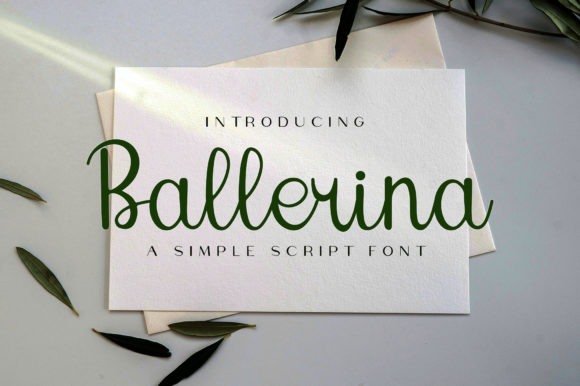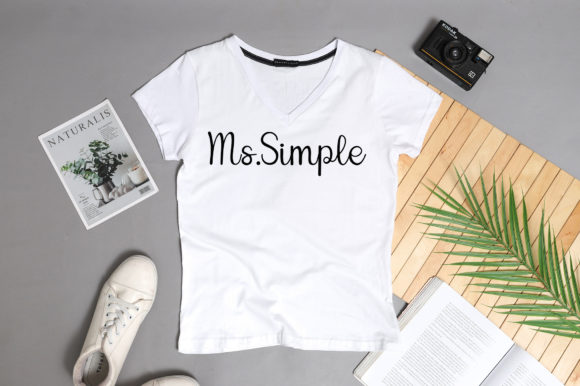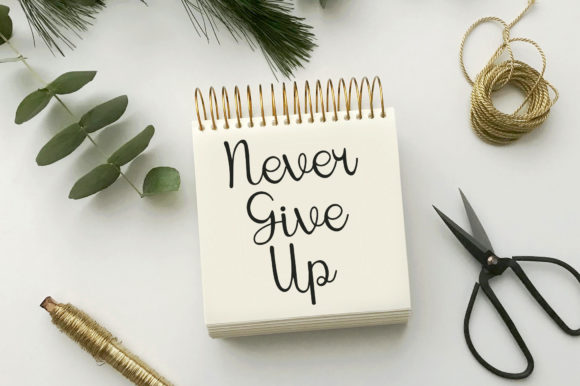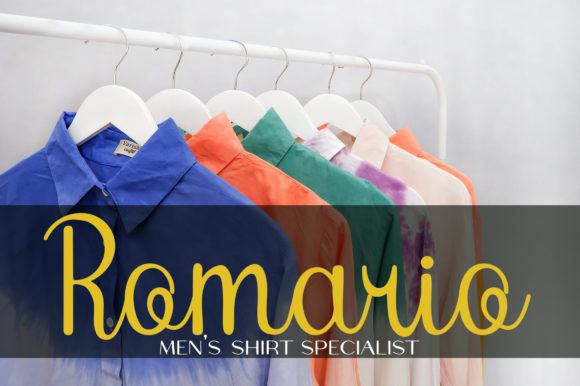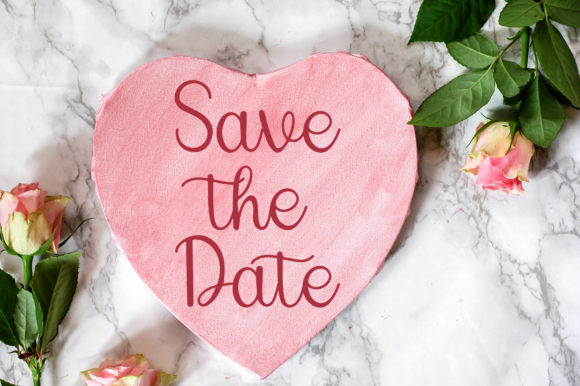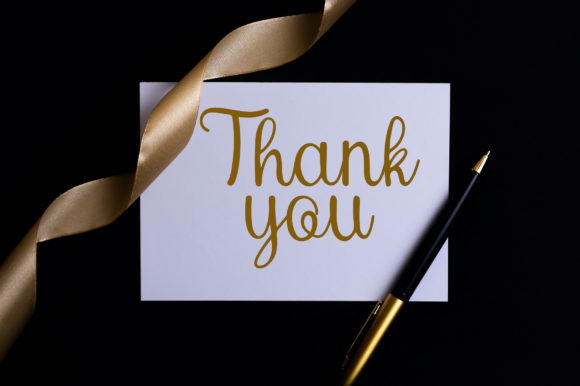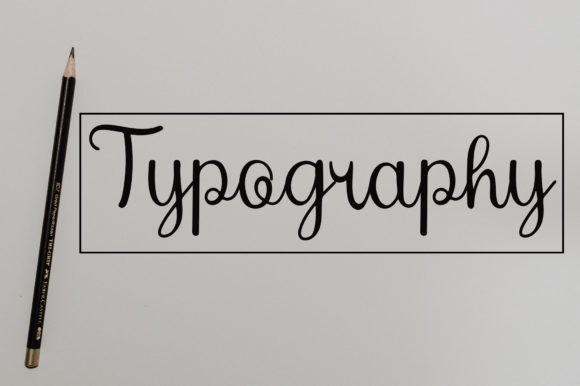
Ballerina Font
About Ballerina Font
Ballerina is a well-balanced script font that was created by paying careful attention to every curve and distance between letters so as to produce a quality vibe. It is perfect for your projects such as wedding invitations, t-shirt printing, brands and much more.